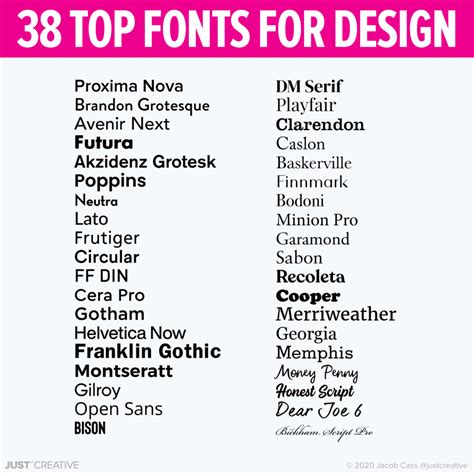
Fonts: A Comprehensive Guide For Designers
Hey there, font enthusiasts and design newbies! Ever looked at a cool website or a stunning poster and wondered what makes it so visually appealing? A big part of that magic often comes down to typography , and more specifically, the fonts used. Fonts aren’t just letters; they’re the visual voice of your message, conveying personality, setting the mood, and guiding the reader’s eye. In this comprehensive guide, we’re going to dive deep into the wonderful world of fonts, exploring their history, classification, how to choose the right ones, and even some tips for using them like a pro. So, grab your favorite beverage, get comfy, and let’s unravel the secrets behind these essential design elements. Understanding fonts is crucial for anyone looking to create impactful visual communication, whether you’re a seasoned graphic designer or just starting out on your creative journey. We’ll cover everything from the nitty-gritty details of font anatomy to practical advice you can use in your next project. Get ready to level up your design game, guys!
The Fascinating History of Fonts
To truly appreciate fonts, it’s helpful to take a stroll down memory lane and see where these typographic marvels originated. The history of fonts is deeply intertwined with the history of writing and printing itself. Our journey begins way back in ancient times with handwritten scripts. Think of those beautiful, elaborate manuscripts painstakingly created by scribes. These weren’t ‘fonts’ in the modern sense, but they were the precursors, establishing the idea of consistent letterforms. The real revolution, however, came with Johannes Gutenberg and his invention of the movable-type printing press in the 15th century. This invention allowed for the mass production of texts, and with it, the birth of standardized typefaces. Gutenberg’s first major work, the Gutenberg Bible, showcased a typeface that mimicked the popular blackletter script of the time. This was a monumental shift, moving from the unique, handcrafted nature of calligraphy to the repeatable, mechanical precision of printed type. Following Gutenberg, type design continued to evolve. Old Style fonts, like those designed by Aldus Manutius in Venice, emerged, featuring more rounded serifs and a less condensed feel. Then came the Transitional and Modern styles, each reflecting the changing aesthetics and technological advancements of their eras. The 18th century saw the rise of Slab Serif and Didone fonts, characterized by strong, geometric serifs and high contrast between thick and thin strokes, respectively. The 19th century brought about the era of Sans-Serif fonts, famously originating from advertising and signage due to their bold, clear forms that stood out. Think of fonts like Akzidenz-Grotesk. The 20th century witnessed an explosion of typographic innovation with the rise of Geometric Sans-Serifs like Futura, Humanist Sans-Serifs like Gill Sans, and the prolific output of design studios like ITC and Linotype. The digital age has further democratized and diversified font creation, leading to an almost endless variety of styles available today. Understanding this rich history helps us appreciate the context and evolution behind every font we encounter, giving us a deeper insight into their design characteristics and intended uses. It’s not just about picking a pretty font; it’s about understanding its legacy and the design principles it embodies.
Decoding Font Classifications: Serif, Sans-Serif, and More!
Alright guys, let’s get down to the nitty-gritty of how fonts are categorized. Understanding these classifications is like learning the alphabet of typography – it’s fundamental! The two most dominant categories you’ll encounter are Serif and Sans-Serif fonts. Let’s break them down. Serif fonts are those with small decorative strokes, or ‘serifs,’ attached to the ends of the main strokes of letters. Think of Times New Roman or Garamond. These serifs can add a touch of elegance, tradition, and readability, especially in long blocks of text. They help guide the eye along the line, making them a popular choice for books, newspapers, and lengthy articles. Serifs themselves have sub-categories: Old Style , Transitional , and Modern , each with subtle differences in stroke contrast and serif style. On the other hand, Sans-Serif fonts (from the French word ‘sans,’ meaning ‘without’) lack these decorative strokes. Examples include Arial, Helvetica, and Futura. Sans-serifs often convey a more modern, clean, and minimalist aesthetic. They are fantastic for headlines, digital interfaces, and situations where clarity and a contemporary feel are paramount. Because they don’t have serifs to break up the letterforms, they can sometimes be easier to read on screens, especially at smaller sizes. But wait, there’s more! Beyond the big two, we have other fascinating classifications. Slab Serif fonts, also known as Egyptian , feature thick, block-like serifs. Rockwell and Courier are good examples. They have a strong, sturdy presence and can be great for headlines or branding that needs a bold statement. Script fonts mimic handwriting or calligraphy, ranging from elegant and formal to casual and playful. They add a personal touch but should be used sparingly, as they can be difficult to read in large quantities. Think of fancy wedding invitations! Display fonts are highly stylized and designed for impact, meant to be seen at larger sizes, like in posters or logos. They come in virtually every imaginable style and are meant to grab attention. Finally, we have Monospaced fonts , where each character occupies the same amount of horizontal space. This is common in coding environments (like your code editor!) and typewriters, ensuring alignment. Understanding these classifications isn’t just academic; it helps you make informed choices about which font best suits the mood, message, and medium of your design project. It’s all about matching the font’s personality to your brand’s or content’s voice, guys!
Choosing the Perfect Font: Tips and Tricks for Success
So, you’ve got a project, and you need to pick the perfect font. It sounds simple, but trust me, it can be a bit of a rabbit hole! Let’s arm you with some solid strategies to make this process less daunting and more effective. First off, consider your audience and the message . Who are you trying to reach, and what feeling or information do you want to convey? A playful, handwritten font might be great for a children’s book, while a sophisticated serif is ideal for a luxury brand. Always think about the context and medium . Is this for a website, a print ad, a logo, or an app? Fonts that work beautifully on a large billboard might be illegible on a small mobile screen. Readability is king, especially for body text. Aim for fonts that are clear and easy to scan, whether online or in print. Test your fonts at different sizes . What looks great as a headline might become a jumbled mess when shrunk down for a paragraph. Ensure your chosen fonts maintain their legibility and aesthetic appeal across various scales. Don’t be afraid to pair fonts . Using just one font can sometimes feel a bit bland. The trick is to pair fonts that complement each other without clashing. A common and effective strategy is to pair a serif with a sans-serif. For example, you could use a bold sans-serif for headings and a readable serif for body text. Another approach is to pair fonts from different categories but with a similar ‘x-height’ (the height of lowercase letters like ‘x’). Look for fonts that share a common design characteristic, like stroke thickness or mood, to create harmony. However, avoid using too many fonts . Generally, sticking to two or three fonts maximum for a single project is a good rule of thumb. Too many fonts can make your design look chaotic and unprofessional. Consider the font’s personality . Does it feel friendly, formal, modern, vintage, serious, or whimsical? Let the font’s character enhance your message. Look at the details . Pay attention to the spacing between letters (kerning) and lines (leading). Good typography is often in the details. Some fonts have better default spacing than others. Finally, explore resources and inspiration . Websites like Google Fonts, Adobe Fonts, and Font Squirrel offer a vast library of free and premium fonts. Look at designs you admire and try to identify the fonts used. Don’t just pick the first font you see; experiment, play around, and trust your gut. Choosing the right fonts is a skill that develops with practice, so keep honing that eye, guys!
Mastering Font Usage: Best Practices for Designers
Alright, you’ve picked your fonts; now it’s time to use them like a boss! Mastering font usage goes beyond just selecting pretty typefaces; it’s about how you arrange and present them to create effective communication. Let’s dive into some best practices that will elevate your designs. Hierarchy is key . You need to guide your reader’s eye through the content. Use different font weights (bold, regular, light), sizes, and styles (italics) to establish a clear visual hierarchy. Your main headings should be prominent, subheadings should be distinct, and body text should be easily scannable. This creates a logical flow and makes your information digestible. Pay attention to spacing . This is where the magic often happens, guys! Kerning (the space between individual letter pairs) and Tracking (the overall spacing between letters in a word or sentence) can dramatically impact readability and aesthetics. While many fonts have good default kerning, you might need to adjust it for specific letter combinations (like ‘WA’ or ‘To’). Leading (the space between lines of text) is also crucial. Too little leading makes text feel cramped, while too much can make it feel disconnected. Aim for comfortable line spacing that aids readability. Alignment matters . Whether you choose left-aligned, right-aligned, centered, or justified text, ensure it’s consistent and serves your design’s purpose. Left-aligned text is generally the most readable for large blocks of text in Western languages. Centered text can work for short headings but can be tricky for long passages. Justified text can create neat blocks but can lead to awkward spacing (‘rivers’) if not handled carefully. Consider contrast . Ensure sufficient contrast between your text color and background color for optimal readability, especially for accessibility. This is non-negotiable! Use italics and bold sparingly and purposefully . While these styles are great for emphasis, overusing them can make your text look cluttered and diminish their impact. Use them to highlight keywords or specific phrases, not to decorate large sections of text. Limit your font variations . As mentioned before, sticking to two or three fonts keeps your design cohesive. If you’re using multiple weights or styles of the same font family, that’s usually fine and can add variety without sacrificing unity. Accessibility is crucial . Always consider users with visual impairments. High contrast, clear fonts, and adequate sizing are essential components of accessible design. Use tools to check color contrast ratios. Consistency is your best friend . Once you’ve established your typographic style (font choices, sizes, weights, spacing), stick to it throughout your project. This creates a professional and polished look. By implementing these best practices, you’ll not only make your designs more aesthetically pleasing but also significantly more effective in communicating your message. It’s all about making type work for you, and for your audience, guys!
The Future of Fonts and Typography
What’s next for the world of fonts, you ask? It’s a dynamic and ever-evolving landscape, guys! The digital revolution has already changed typography dramatically, and that trend is only set to continue. We’re seeing a move towards more variable fonts , which are single font files that can contain many different styles – think bold, italic, condensed, expanded – all within one package. This offers incredible flexibility for designers and can also lead to smaller file sizes, which is great for web performance. Imagine being able to smoothly transition from a light to a bold weight with just a slider! Another exciting area is the increasing use of AI and machine learning in font design. Algorithms can now assist in creating new typefaces, identifying trends, and even generating entirely unique font styles based on specific parameters. This could lead to an explosion of new and innovative designs in the coming years. Furthermore, as technology advances, so does the demand for custom typography . Brands are increasingly looking for unique font identities that set them apart. We’ll likely see more bespoke font creation and a greater appreciation for custom lettering. Accessibility and inclusivity will continue to be major drivers. Font designers are becoming more conscious of creating typefaces that are legible and usable for everyone, including people with dyslexia and other reading challenges. This means clearer letterforms, better spacing, and more thoughtful design choices. The lines between digital and physical are also blurring. Think about augmented reality (AR) and virtual reality (VR) . How will typography function in these immersive environments? We might see more dynamic, responsive, and interactive type. Finally, as the world becomes more visually saturated, the importance of meaningful and distinctive typography will only grow. A well-chosen font can cut through the noise, convey authenticity, and build a strong emotional connection with an audience. So, the future of fonts looks incredibly bright, filled with innovation, customization, and a deeper understanding of type’s power to communicate. It’s an exciting time to be a font lover, that’s for sure!
Conclusion: Embrace the Power of Type
So there you have it, folks! We’ve journeyed through the history of fonts, dissected their classifications, armed ourselves with tips for choosing the perfect ones, and explored best practices for using them effectively. Fonts are far more than just decorative elements; they are fundamental tools that shape perception, convey meaning, and evoke emotion. Whether you’re designing a website, a logo, a book cover, or even just a social media post, the fonts you choose and how you use them will profoundly impact your message’s success. Remember the importance of readability, hierarchy, and consistency . Don’t be afraid to experiment, but always keep your audience and your message at the forefront. The world of typography is vast and rewarding, and the more you learn and practice, the better you’ll become at harnessing its power. So go forth, guys, and choose your fonts wisely! Let your type speak volumes and make your designs truly unforgettable. Happy designing!